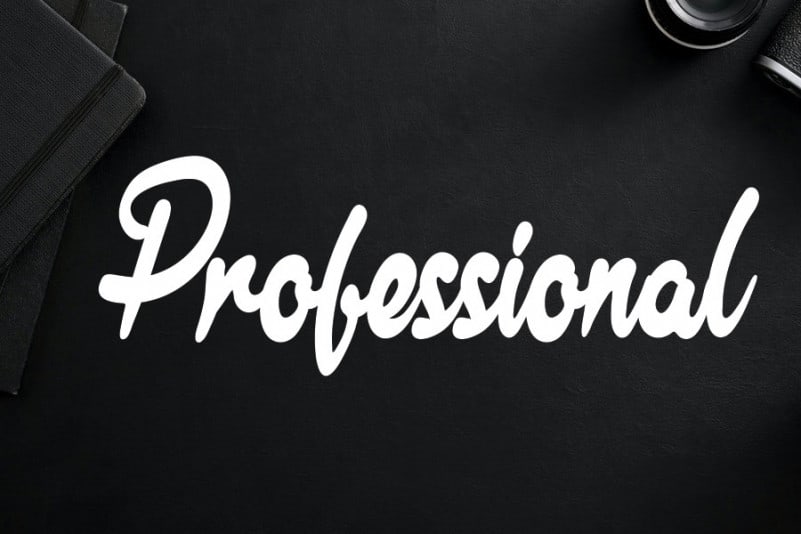
Gallileo Handwritten Font
Gallileo Handwritten Font is a cute and casual handwritten font with an incredibly friendly feel. Whether you’re looking for fonts for Instagram or calligraphy scripts for DIY projects, this font will turn any creative idea into a true piece of art!
The latest style letters are perfect for wall displays, wedding invitations, social media post logos, advertisements, product packaging, product designs, labels, photography, watermarks, invitations, stationery, and any project that requires taste handwriting.